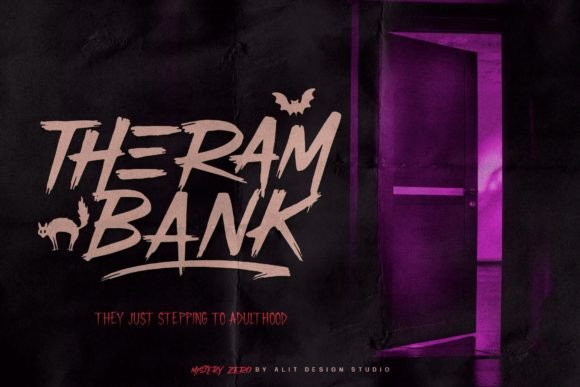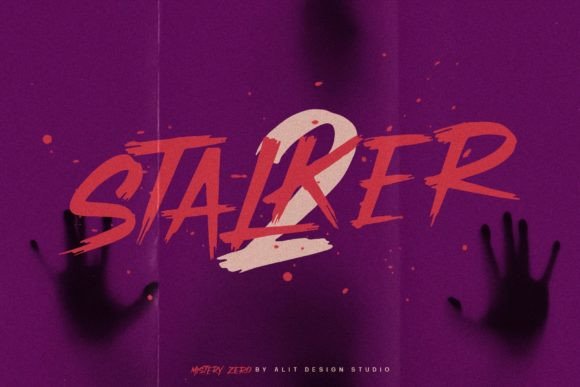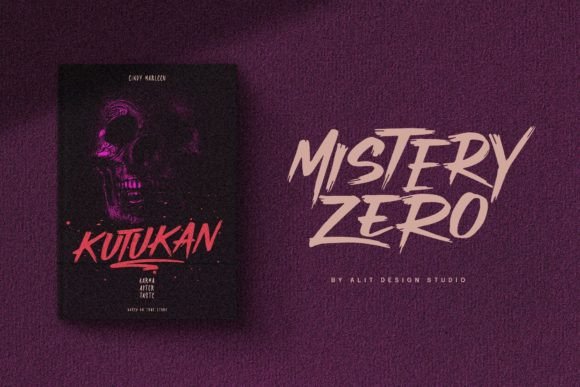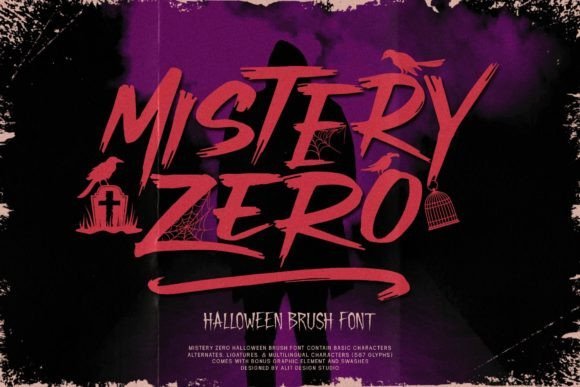
Introduction to Mistery Zero Font
Mistery Zero is a cool and spooky handwritten brush font.
Not only it can help you create unique Halloween designs, but can also give a mysterious, creepy vibe to all your horror-themed projects This font is PUA encoded which means you can access all the glyphs and swashes with ease.
Key Features of Mistery Zero Font
Why Choose Mistery Zero Font?